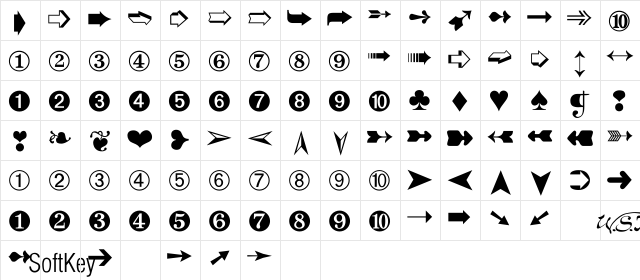
Gamesncardz Dings Regular
Design Context for Gamesncardz Dings Typeface
Gamesncardz Dings takes a measured approach to typography — its balanced proportions and neutral character make it a reliable workhorse for both digital and print work.